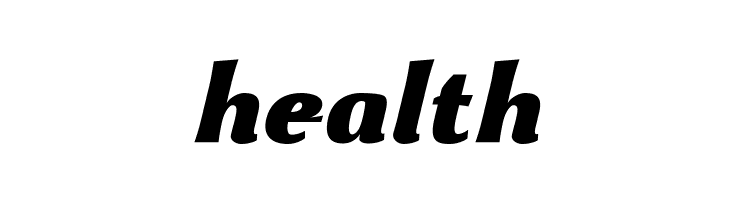
A bold, high-contrast italic serif font with a dynamic and elegant style.
A distorted, artistic font with irregular, hand-cut style.
A modern, bold, italic monospaced font with medium contrast, perfect for coding.
A modern, monospaced font ideal for coding and technical documents.
A modern, monospaced italic font with medium contrast, ideal for coding.
A modern, monospaced font with clean lines and consistent spacing, ideal for coding.
A bold, angular font with a modern, geometric style.
A geometric, modern font with clean lines and a futuristic feel.
A bold, graffiti-inspired font with sharp, angular lines and dynamic strokes.
A bold serif font with a modern twist and slightly condensed letterforms.
Recent favorites include Beatrix Antiqua Black Italic, Distrowt, CamingoCode Bold Italic, CamingoCode Bold and CamingoCode Italic. They balance clarity and personality, working well for tech brands, editorial layouts, and social visuals.